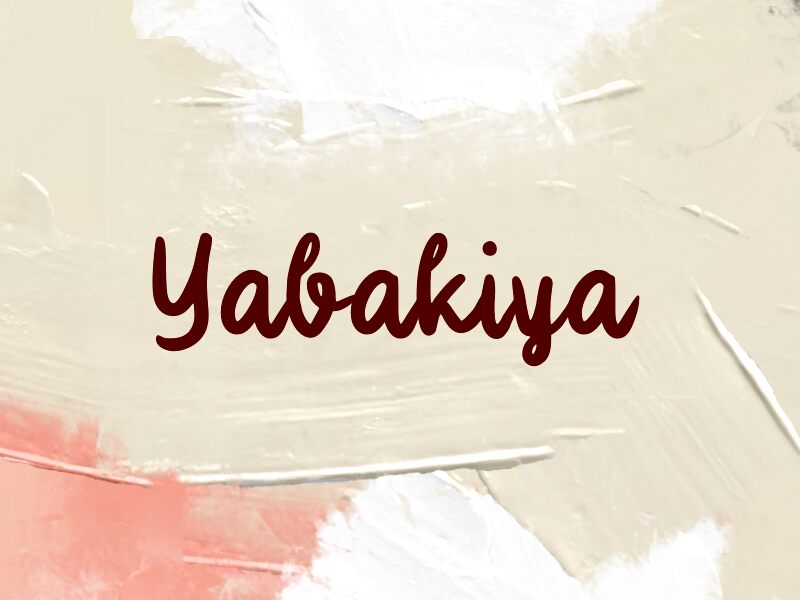
Yabakiya
Yabakiya font by wepfont.com is a free handwritten typeface that solves a familiar script headache: it looks genuinely casual, but stays bold, smooth, and easy to read. Thick, inky strokes and connected letters create a friendly, marker-pen feel, while the consistent rhythm keeps words from turning into a tangled mess. It has just enough bounce and curve to feel personal, without drifting into messy or childish.
Using Yabakiya, you can drop a warm, human voice into branding without sacrificing clarity on screens or small labels. This free font works beautifully for social media graphics, quote posts, packaging, cafe menus, invitations, and blog headers. Pair it with a clean sans serif for body text, and let Yabakiya handle the headlines, logos, and short phrases at larger sizes where its thick, rounded forms can really breathe.